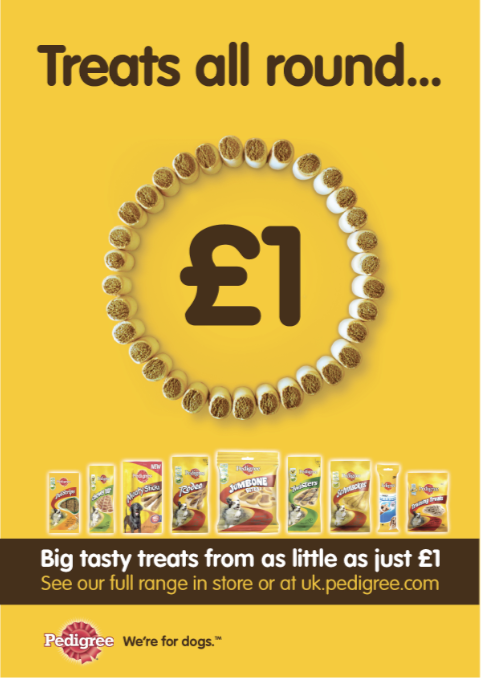
Hero image – press ad
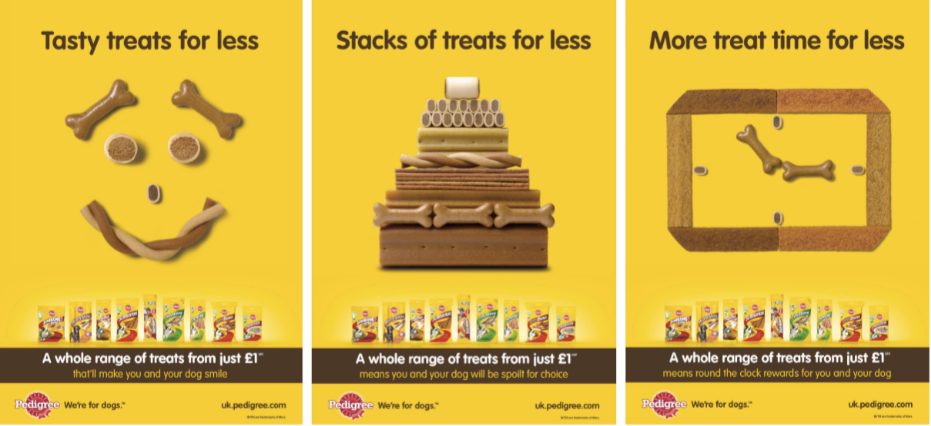
Press ads
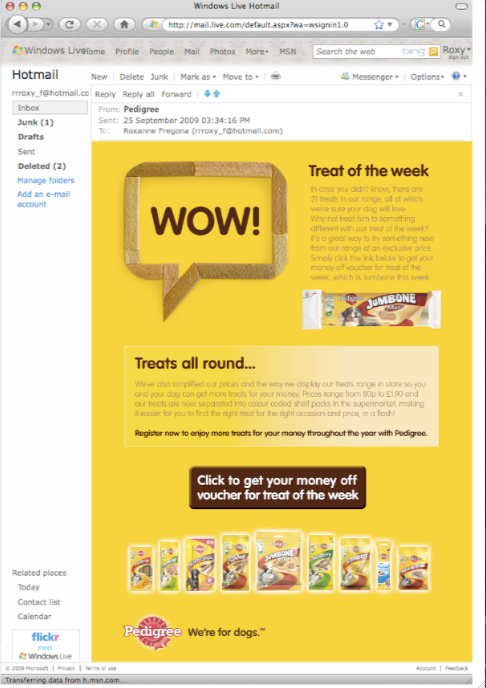
eCRM
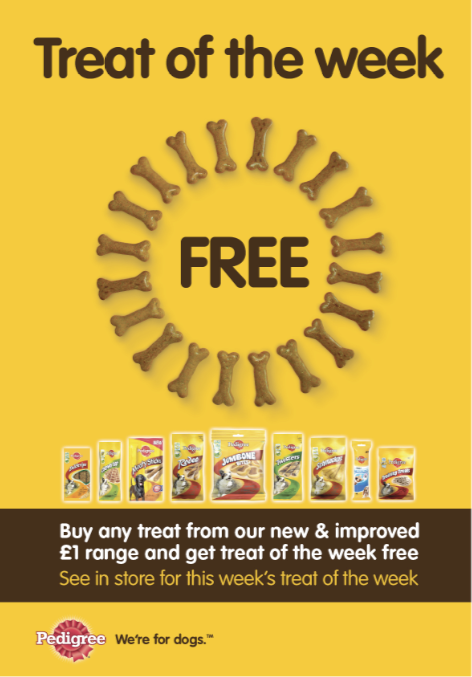
Phase 2 – press ad
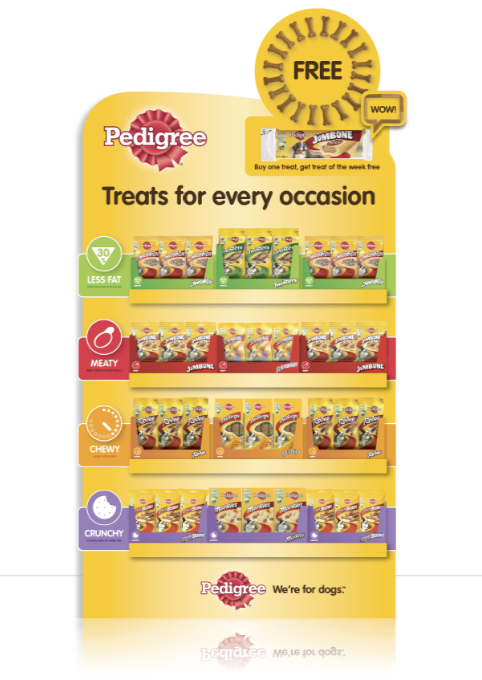
In store FSDU
To communicate Pedigree’s new pricing structure, we built our campaign out of treats. Completely off brand but stacks of fun, it captured the sentiment of the brief perfectly and won the client over in a flash. Our value-led messaging was quirky, unexpected and packed with emotional ‘treat’ cues, making it hard to resist treating your dog.
Phase 2 of this campaign introduced ‘Treat of the Week’ – a weekly money-saver, available in store. Customers were notified via eCRM and press ads.